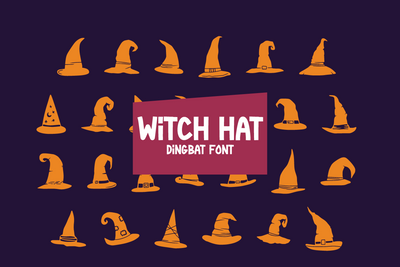
Witch Hat - Halloween Dingbat Font
Witch Hat is an authentic hand-drawn dingbat font with a natural style that creates a beautiful sense of art. This font contains a glyph of a witch hat with a halloween theme